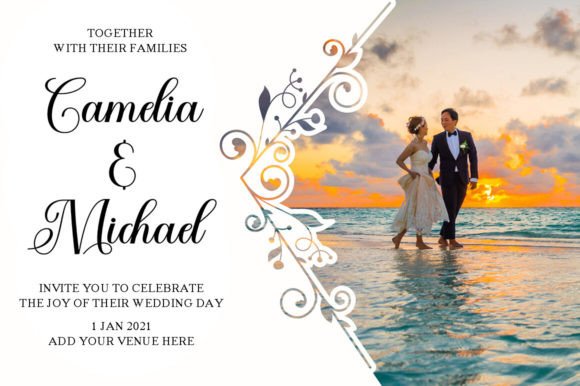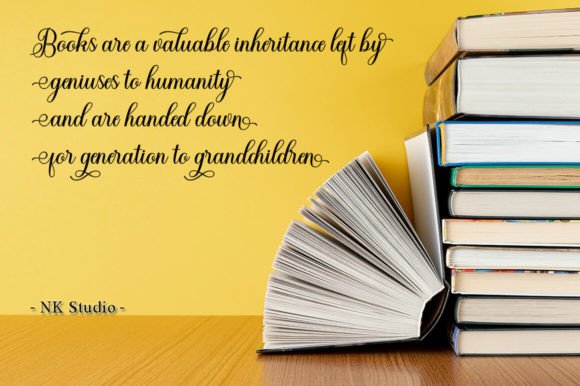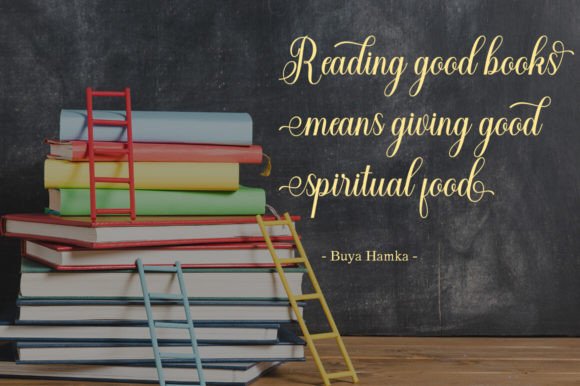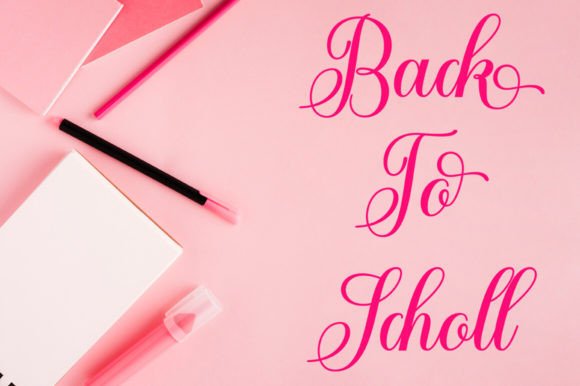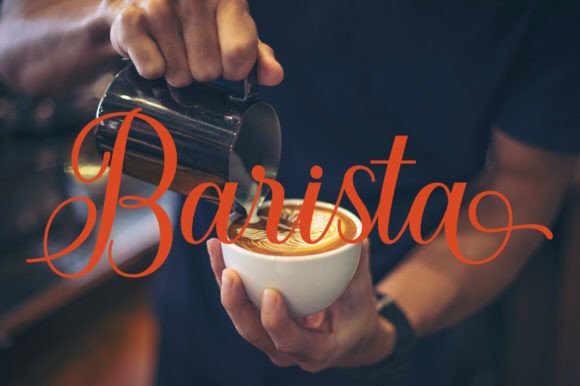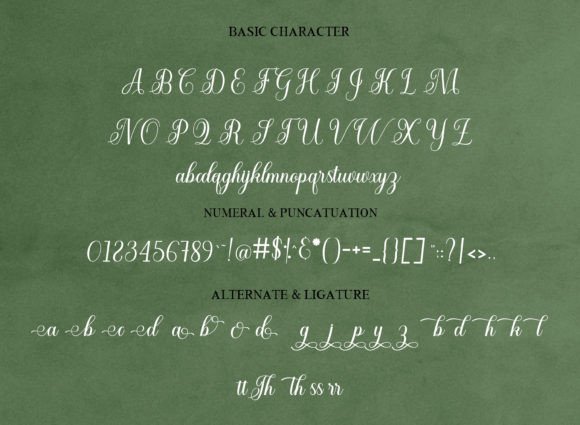
Introducing Cuttauri Font: Elevate Your Designs with Elegance and Versatility
In the world of typography, a font can make or break a design. For designers and crafters looking for that perfect touch of elegance and sophistication, the Cuttauri Font is an exceptional choice. This beautiful script font, with its myriad of alternative styles, is not just a typeface but a tool that can transform your projects into something truly extraordinary.
The Beauty of Cuttauri Script
Cuttauri Script stands out for its natural and elegant appearance. It’s a font that exudes a sense of luxury and refinement, making it perfect for projects where you want to make a lasting impression. Whether you’re working on invitations, product packaging, promotional offers, product designs, or crafting labels, Cuttauri Script brings a level of sophistication that’s hard to match.
One of the key advantages of Cuttauri Script is its versatility. This font is not limited to just one or two applications; it’s suitable for a wide range of products and projects. Here are some areas where Cuttauri Script truly shines:
- Invitations: Make your event invitations stand out with a touch of elegance.
- Product Packaging: Elevate your brand’s packaging with a sophisticated look.
- Offers and Promotions: Create compelling promotional materials that capture attention.
- Product Designs: Incorporate Cuttauri Script into your product designs for a refined look.
- Crafters: Perfect for crafters looking to add a professional touch to their products.
- Labels: Create eye-catching labels for products or files.
- Photography: Use it for watermarks to add an elegant signature to your photos.
- Logos & Branding: Enhance your brand’s identity with a unique and elegant typeface.
Why Choose Cuttauri Font?
With so many fonts available, why choose Cuttauri Script for your projects? Here are a few reasons:
- Elegance: It adds a touch of elegance to any project.
- Versatility: Suitable for a wide range of applications.
- Alternative Styles: Offers many alternative styles to keep your designs fresh and unique.
Cuttauri Font is more than just a script font; it’s a design solution that can elevate your projects to new heights. Its elegance, versatility, and compatibility with popular design software make it an excellent choice for designers and crafters looking to make a statement. Whether you’re working on a commercial project or a personal craft, Cuttauri Script can help you achieve that perfect look. Explore the possibilities with Cuttauri Font and discover how it can transform your designs.